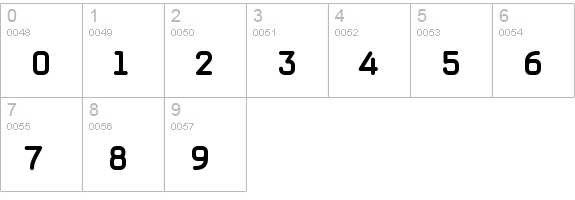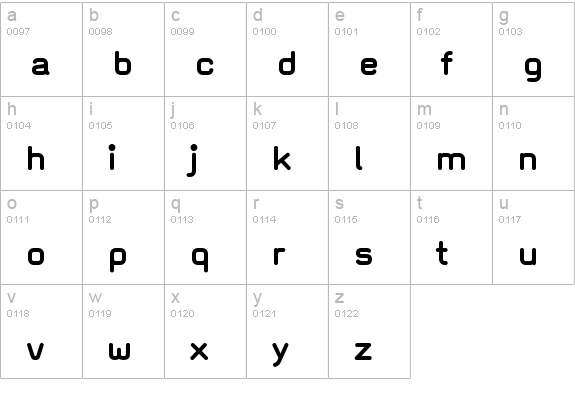
MagdaClean-Bold Font Details
MagdaClean-Bold is a remarkable font that effortlessly combines elegance and modernity. With its bold and strong characteristics, this typeface exudes confidence and power, making it perfect for any design project that requires a touch of boldness. The clean and sleek lines of MagdaClean-Bold create a sense of professionalism and sophistication, making it suitable for both print and digital media. What sets MagdaClean-Bold apart is its versatility and adaptability. Whether you're designing a logo, creating a poster, or working on a website, this font will effortlessly elevate your design and leave a lasting impression on your audience. Its bold and striking presence demands attention and ensures that your message is conveyed with utmost impact. One of the best parts about MagdaClean-Bold is that it is freely available to download at FontsMarket.com. This means that you can access this exceptional font without any cost, making it an ideal choice for designers on a budget or those who simply appreciate the value of a high-quality free font. FontsMarket.com offers a vast collection of fonts, and MagdaClean-Bold is undoubtedly a standout addition. So why settle for ordinary when you can make a bold statement with MagdaClean-Bold? Download it today from FontsMarket.com and take your designs to new heights of creativity and professionalism. With its impeccable style and availability at no cost, MagdaClean-Bold is simply a must-have for any designer looking to make a lasting impact.